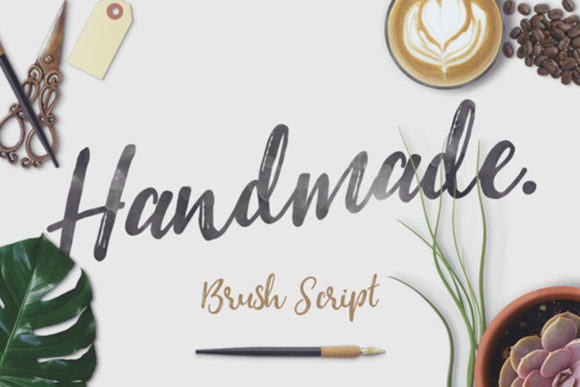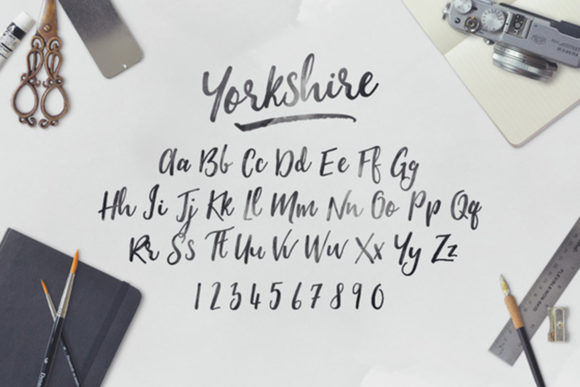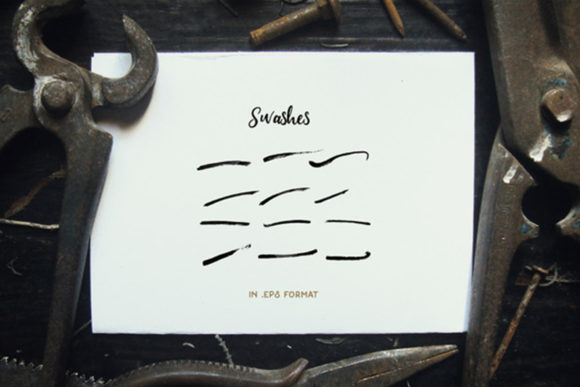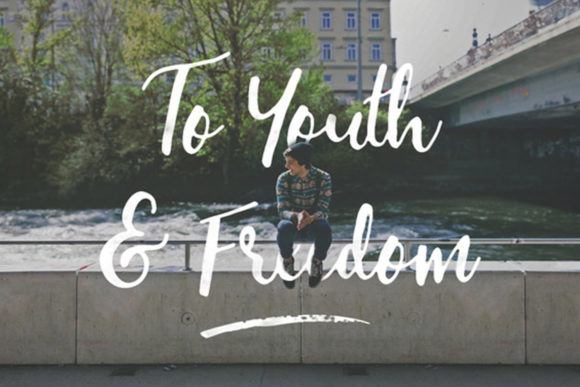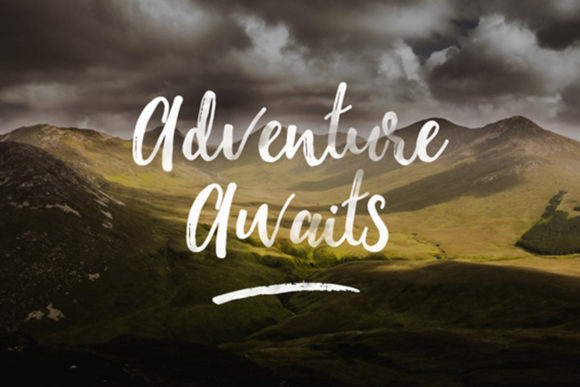
Yorkshire Font
About Yorkshire Font
Yorkshire is a casual, fun handwritten font, created by using a brush pen. Clean and a little bit quirky, this font is the perfect fit for all of your logos, branding, social media, and crafty DIY projects.